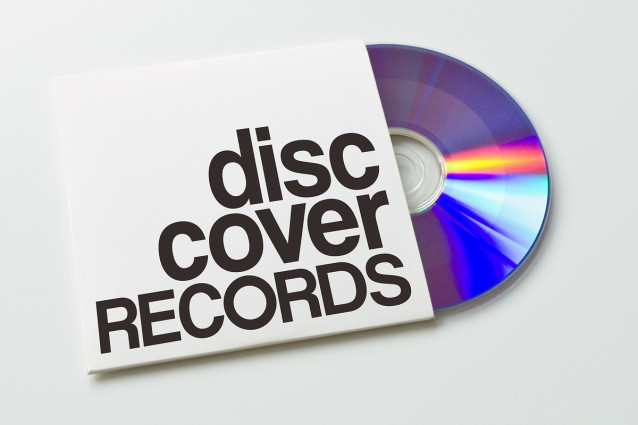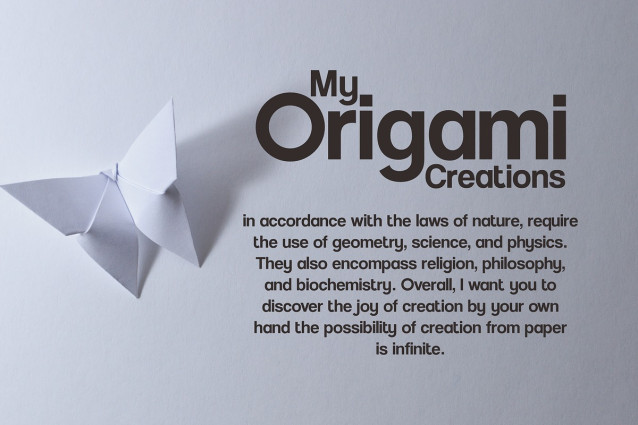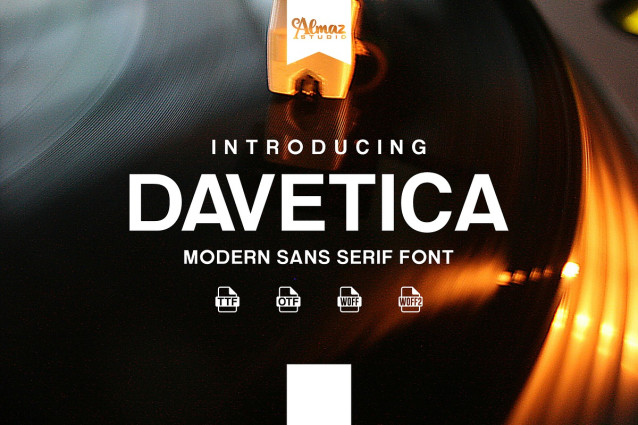
Davetica Font
Davetica Font, this is a brand new elegant sans serif typeface created by Almaz Studio™. Almost all current Latin-based languages are supported. Davetica this allows you to install the fonts on a computer and use them to create posters, web graphics, game graphics, t-shirts, videos, signs, eBooks, logos and more. Davetica with a very strong font character will make your design different and more attractive. This font has several alternatives built into it, perfect for creating logo designs, badges, web fonts, magazines and more. Upon closer inspection you will notice the terminals of some of the characters are slightly turned inwards, this detail gives its distinctive and friendly personality. Read the license agreement for details. If you’d like to embed these fonts in an app, on the web or anything that’s not covered by the desktop license agreement, visit the link below.